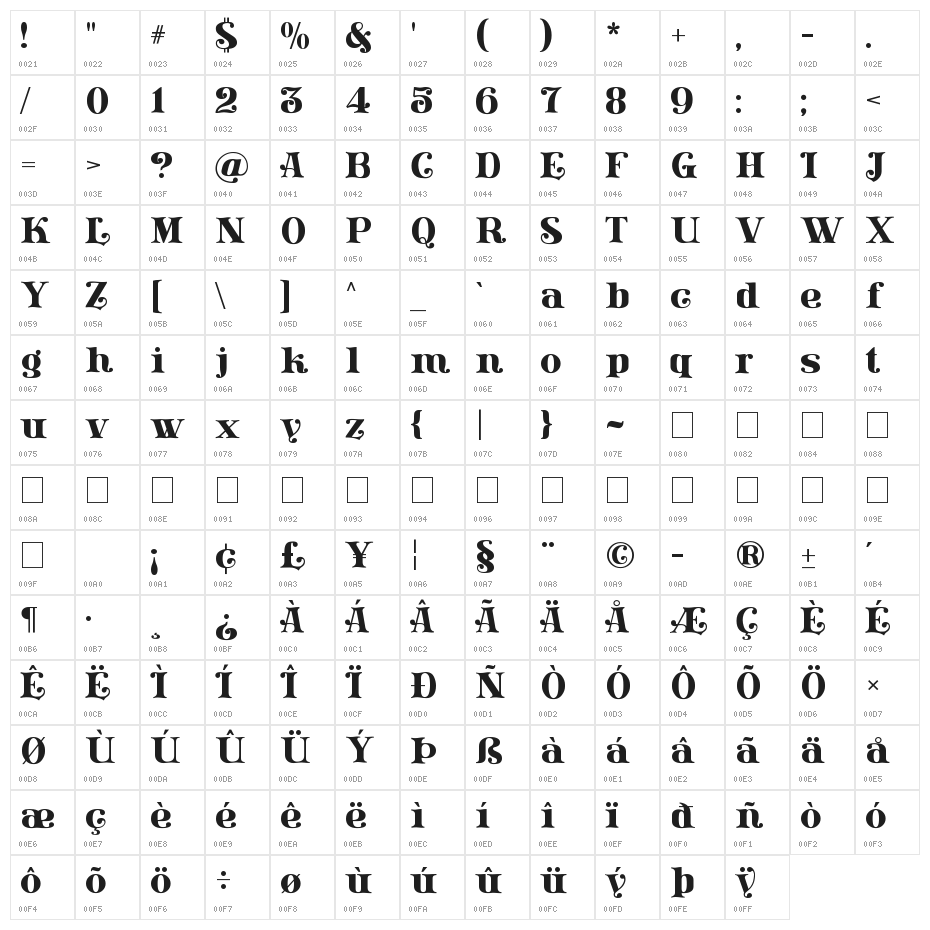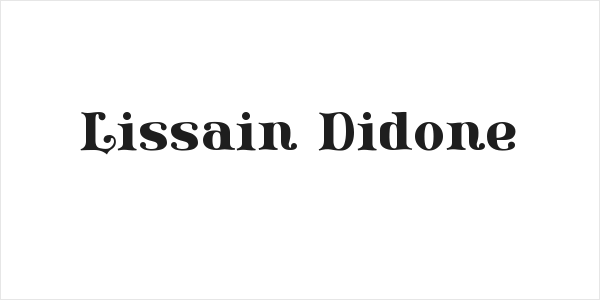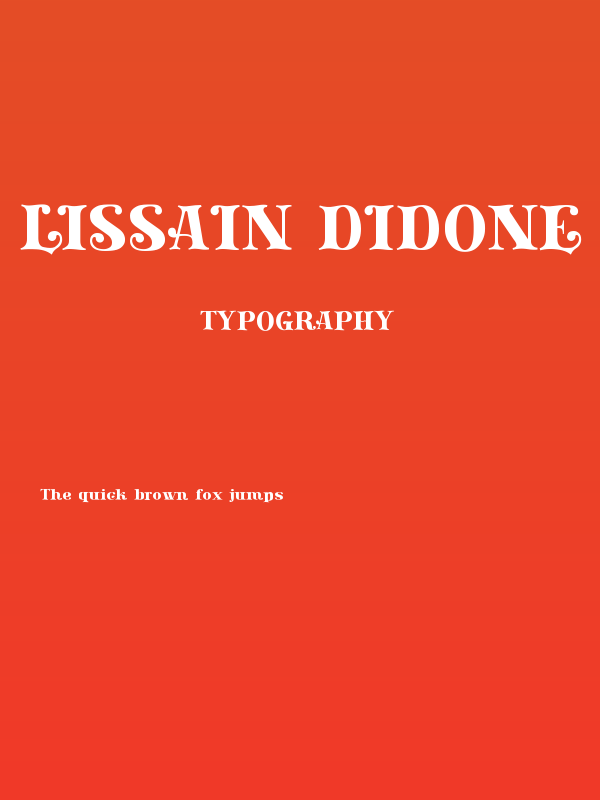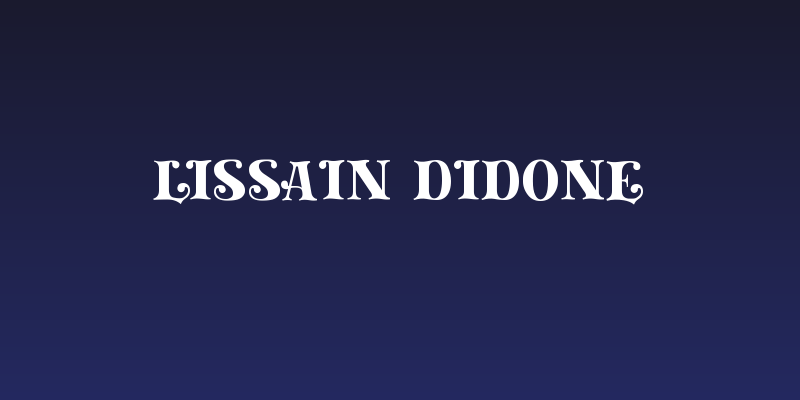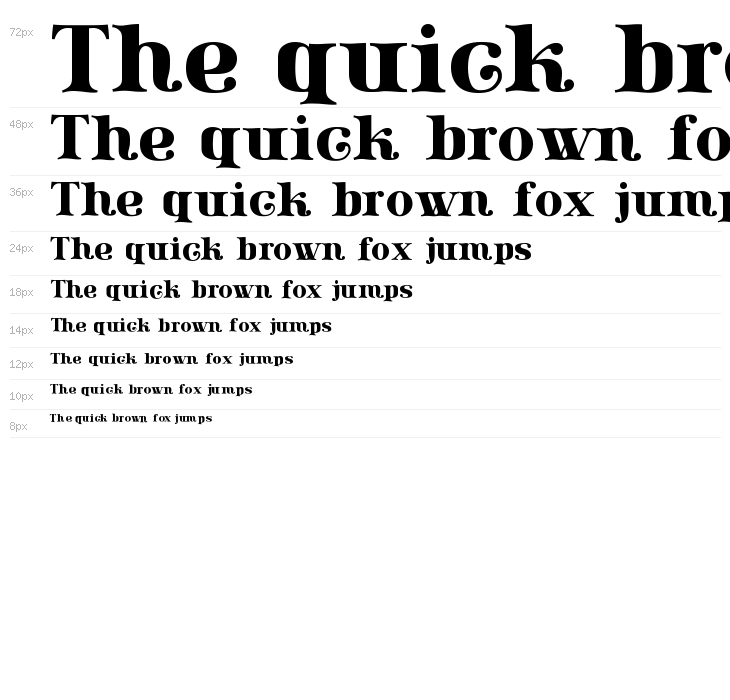
Lissain Didone Font
Lissain Didone Description
This font features a bold and dramatic style with high contrast between thick and thin strokes, typical of Didone typefaces. The serifs are sharp and pronounced, adding a touch of elegance and sophistication. The uppercase letters are particularly striking, with unique flourishes that give the font a decorative flair. The lowercase letters maintain a consistent style, ensuring readability while still offering a distinct appearance. The numerals are bold and clear, making them suitable for attention-grabbing headlines or displays. Special characters are designed with the same attention to detail, ensuring a cohesive look across all glyphs.